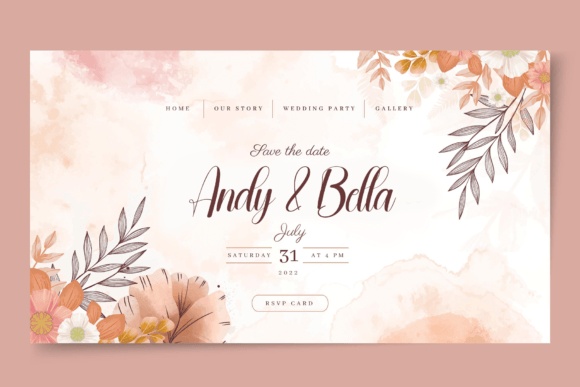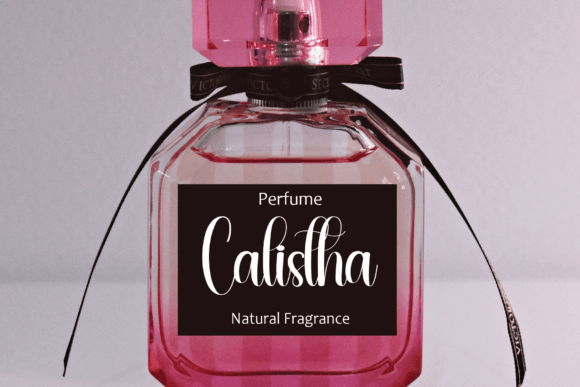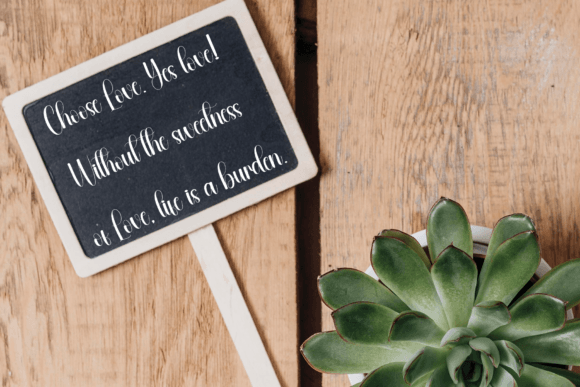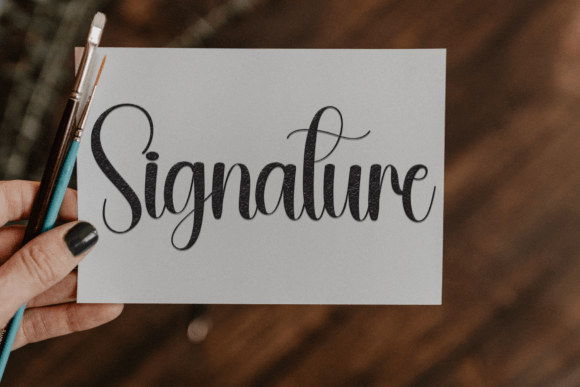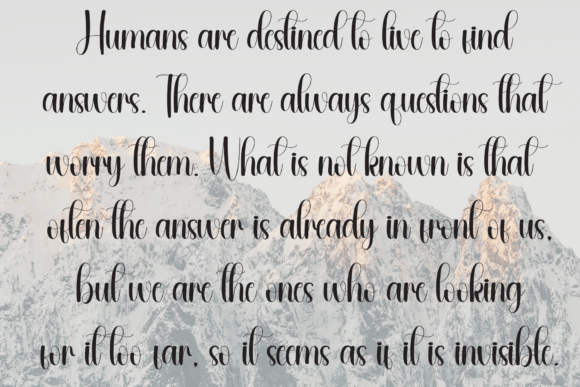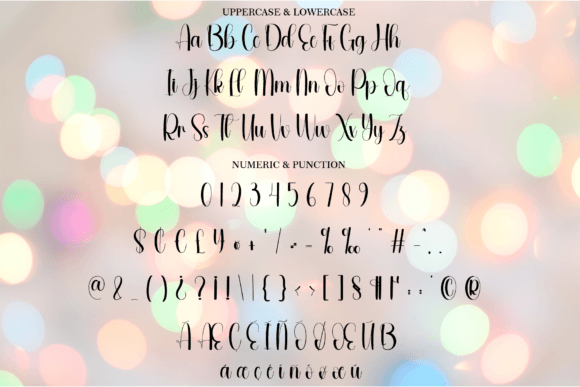
Introducing Glow Font: The Sweet and Friendly Handwritten Font for Your Creative Projects
Are you looking for a font that can add a touch of warmth and personality to your designs? Look no further than Glow Font, a beautiful handwritten font that is perfect for creating wedding invitations, cards, and other designs that require a lovely and elegant touch. In this article, we’ll take a closer look at Glow Font, its features, and how you can use it to elevate your creative projects.
What is Glow Font?
Glow Font is a sweet and friendly handwritten font that is designed to bring a fresh and casual feel to your designs. Its unique and elegant lettering style makes it ideal for a wide range of creative projects, from wedding invitations and cards to posters, flyers, and more. Whether you’re a designer, crafty DIY enthusiast, or simply someone who loves to create, Glow Font is a versatile and beautiful font that can help you achieve your design goals.
Key Features of Glow Font
So, what makes Glow Font so special? Here are some of its key features:
- Handwritten style: Glow Font has a beautiful, handwritten style that gives it a personal and unique touch.
- Sweet and friendly: The font has a sweet and friendly feel to it, making it perfect for designs that require a warm and inviting tone.
- Fresh and casual: Glow Font has a fresh and casual vibe that makes it ideal for modern designs.
- Elegant lettering: The font features elegant lettering that is perfect for creating beautiful wedding invitations, cards, and other designs.
Uses for Glow Font
Glow Font is a versatile font that can be used for a wide range of creative projects. Here are some ideas to get you started:
- Wedding invitations: Glow Font is perfect for creating beautiful and elegant wedding invitations that set the tone for your special day.
- Cards: Use Glow Font to create lovely cards for birthdays, holidays, and other special occasions.
- Posters and flyers: Glow Font can add a touch of elegance and sophistication to your posters and flyers.
- DIY projects: If you love to craft and DIY, Glow Font is a great font to use for your projects, such as handmade cards, gift tags, and more.
Why Choose Glow Font?
So, why should you choose Glow Font for your creative projects? Here are some reasons:
- Unique and elegant: Glow Font has a unique and elegant style that will set your designs apart from the rest.
- Easy to read: The font is easy to read, making it perfect for designs that require a clear and concise message.
- Versatile: Glow Font can be used for a wide range of creative projects, from wedding invitations to DIY crafts.
- High-quality: Glow Font is a high-quality font that is designed to deliver exceptional results.
In conclusion, Glow Font is a beautiful and versatile handwritten font that is perfect for adding a touch of warmth and personality to your designs. With its unique and elegant lettering style, sweet and friendly feel, and fresh and casual vibe, Glow Font is ideal for a wide range of creative projects, from wedding invitations and cards to posters, flyers, and more. Whether you’re a designer, crafty DIY enthusiast, or simply someone who loves to create, Glow Font is a great choice for your next project.